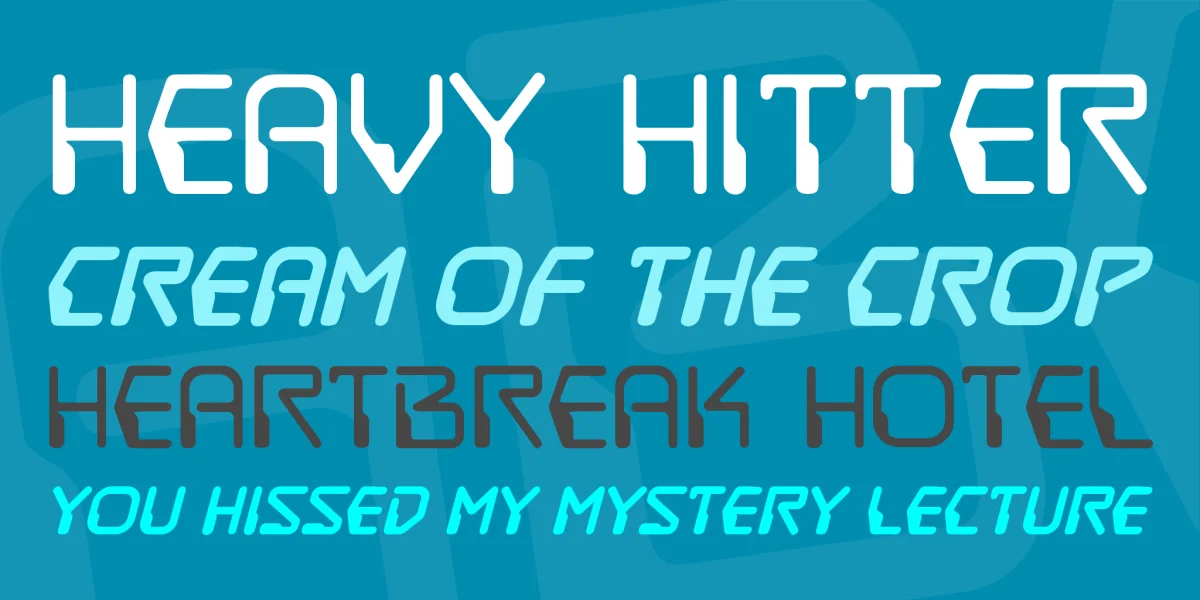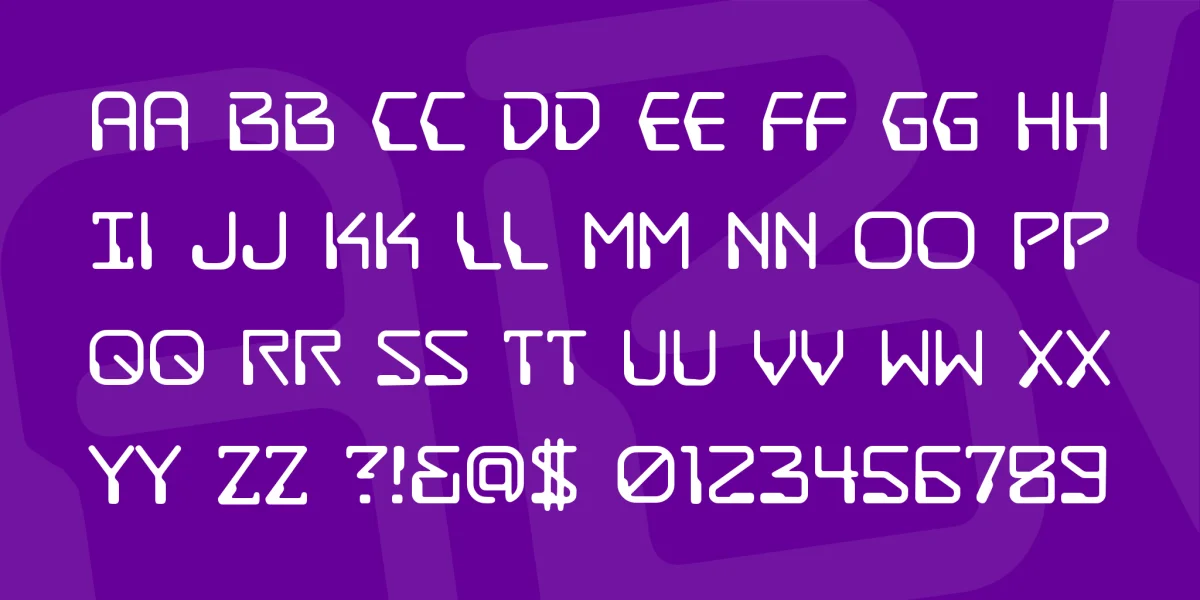
This font came about when I needed to letter a robot's voice and nothing else in my repertoire seemed to fit the bill. (But that's how most fonts begin life…) DESTRUCTO BEAM is perfect for your sci-fi computer displays, and of course, for that maniacal android that likes to dismember humans and wear their skin like a wet fur coat. Good times. Comes with Regular and Bold.